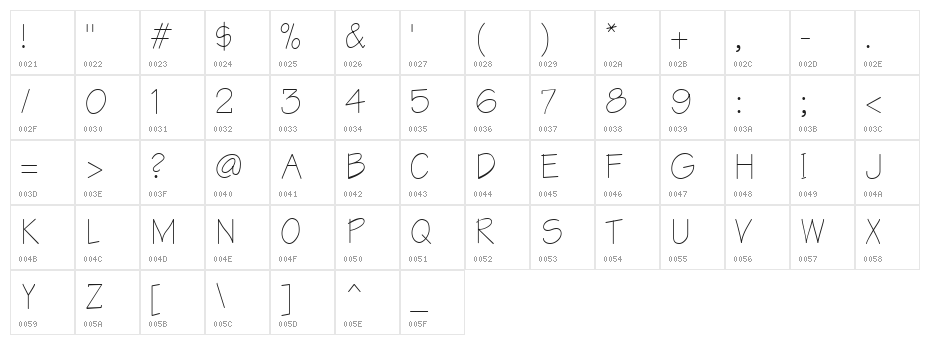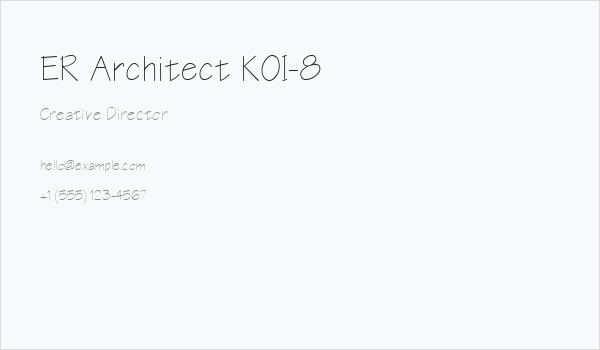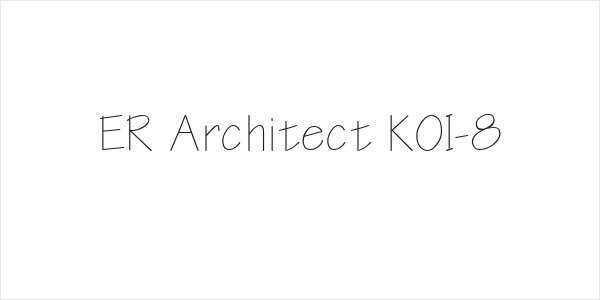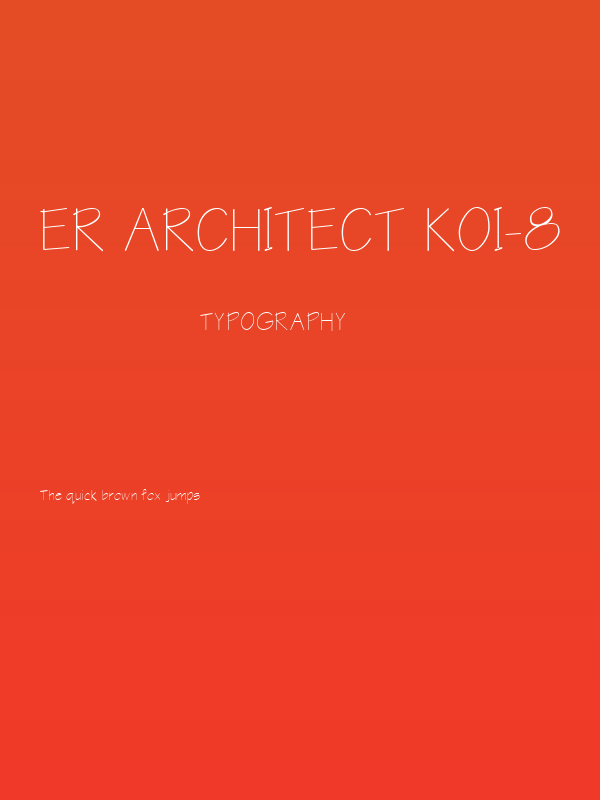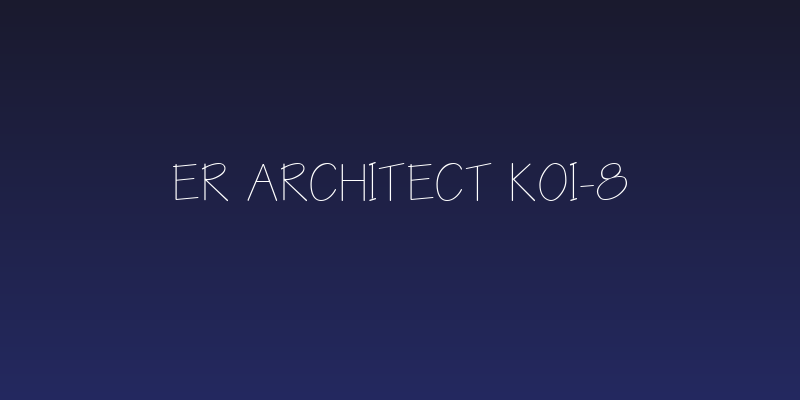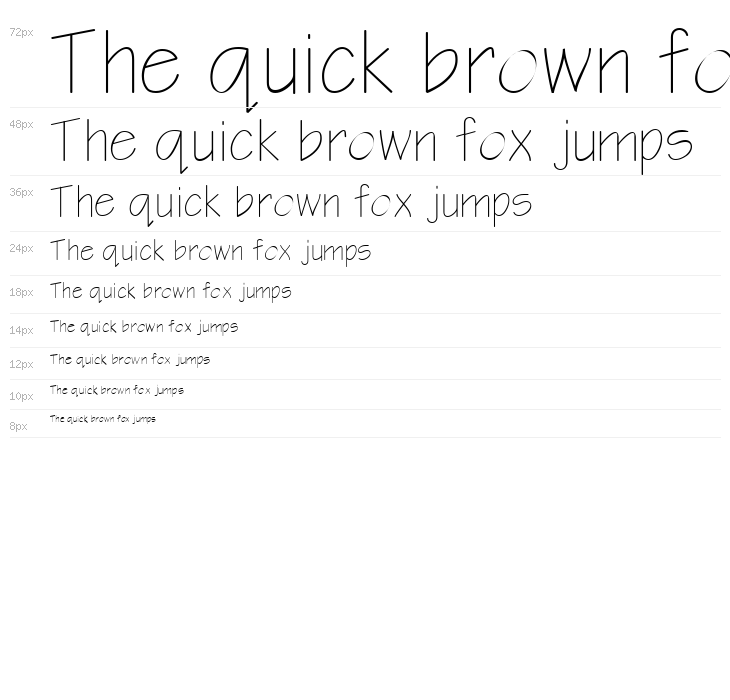
ER Architect KOI-8 Font
ER Architect KOI-8 Description
This font features a clean and minimalist design with a handwritten feel. The characters are composed of thin, consistent strokes that give it a light and airy appearance. The uppercase letters are slightly taller than the lowercase, maintaining a uniform width throughout. The numbers and special characters follow the same style, ensuring cohesiveness across all elements. The font's simplicity and elegance make it versatile for various design applications.
| Use Case | Logos, Headlines, Personal projects |
| Proposed Projects | Ideal for architectural drawings, minimalist branding, personal stationery, and creative projects that require a touch of elegance. |